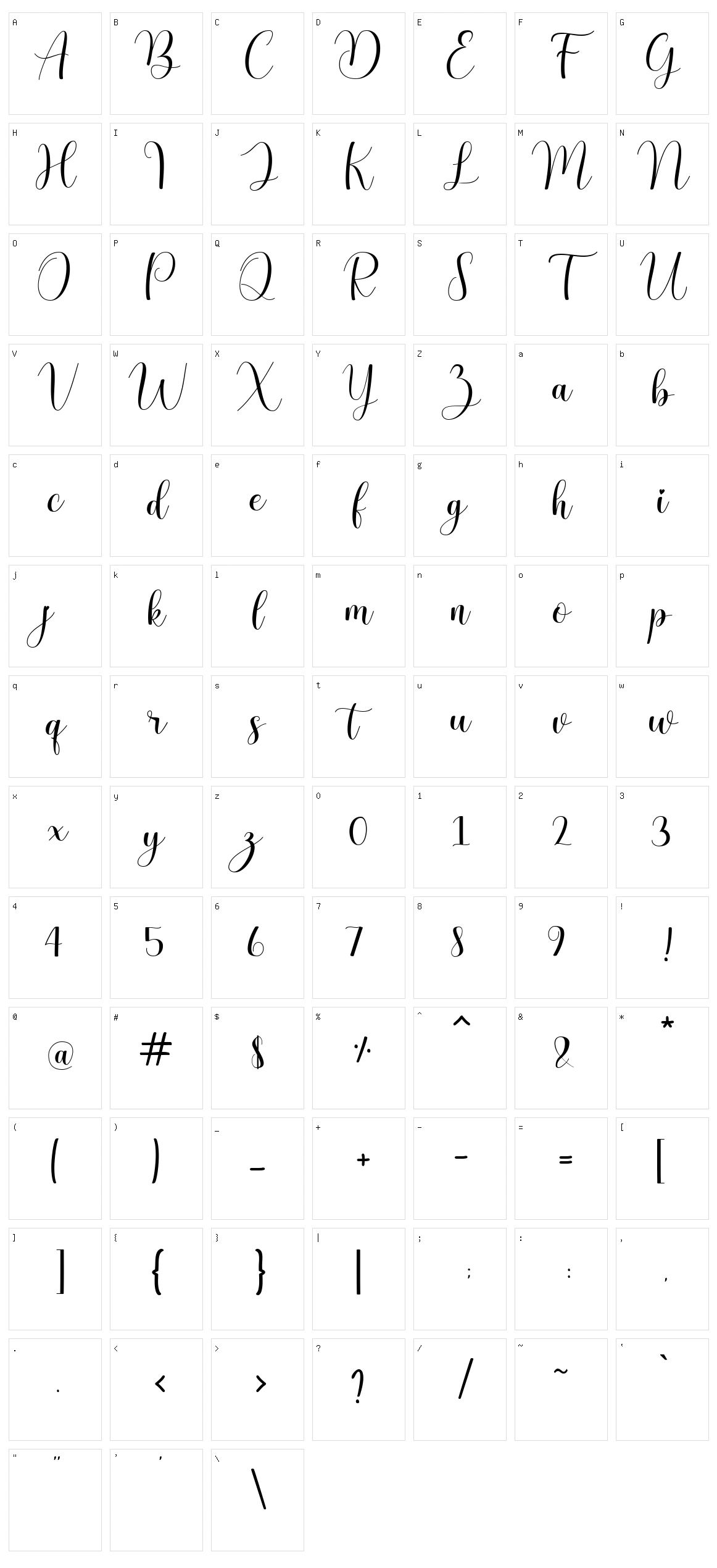
The free font Money Honey is carefully designed by Haffa Studio, showcasing a thoughtful balance of creativity and usability and falls under the Script font style. When you download the ZIP file, it contains only 48.64 KB of font files, making it lightweight and quick to download. Please review the license details below to understand permitted usage and distribution rights. If license information is not available, we recommend using this font for personal projects only or contacting the author directly for commercial usage permissions.